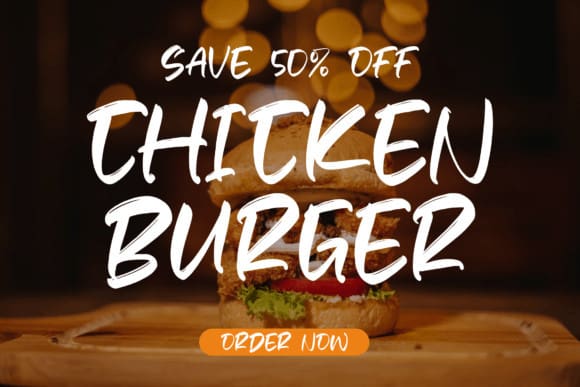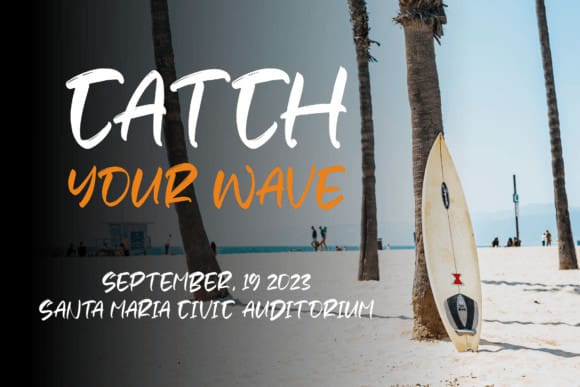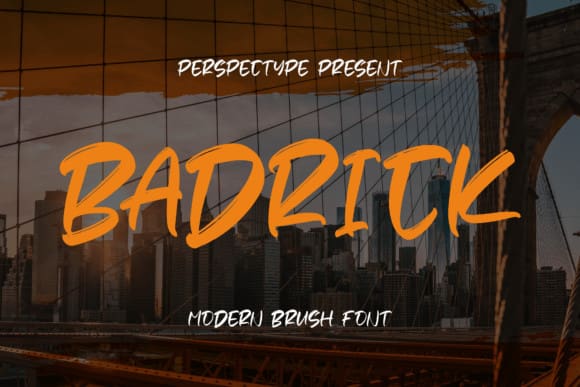
Badrick Brush Font
Badrick Brush Font is a modern brush handwritten font suitable for logos, branding projects, homeware designs, product packaging, mugs, quotes, posters, shopping bags, T-shirts, book covers, name cards, invitation cards, greeting cards, labels, photography, watermarks, special events, and all your other lovely projects that need a beautiful script taste.